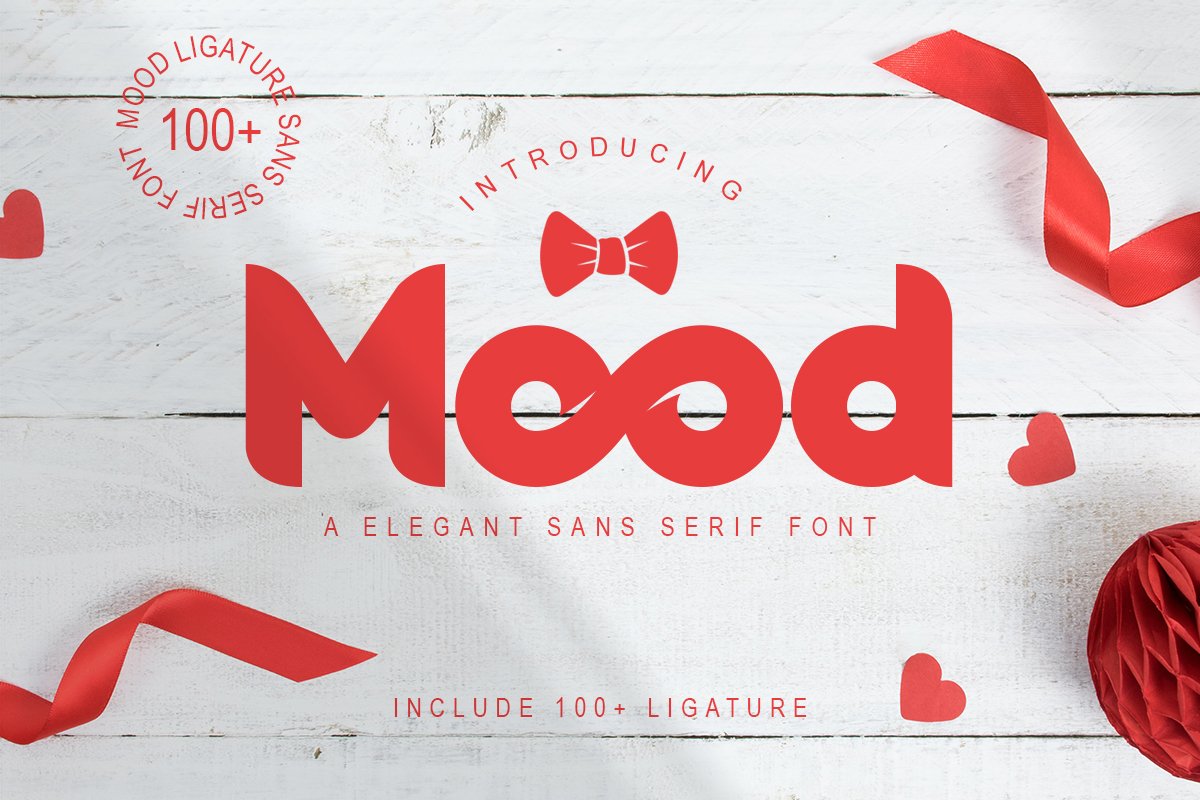
Mood | Sans Serif Font
Mood
Mood is a Elegant Sans Serif font, perfect for logo design, branding, clothing design, posters, wedding invitations and so much more! Include 100+ ligature.